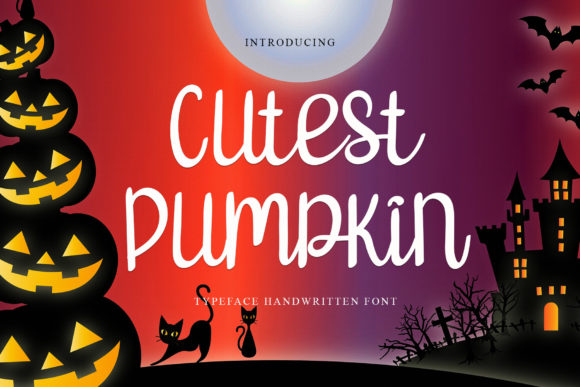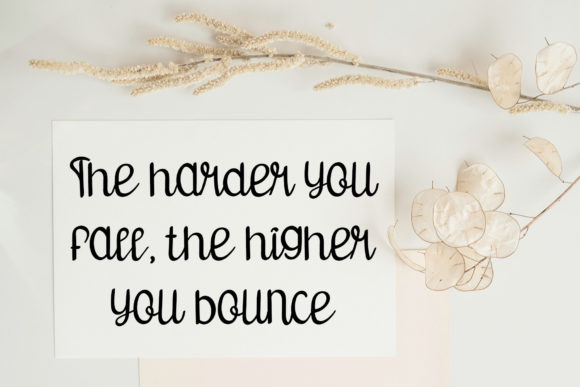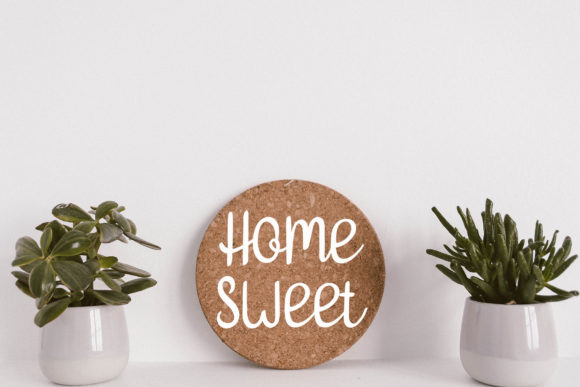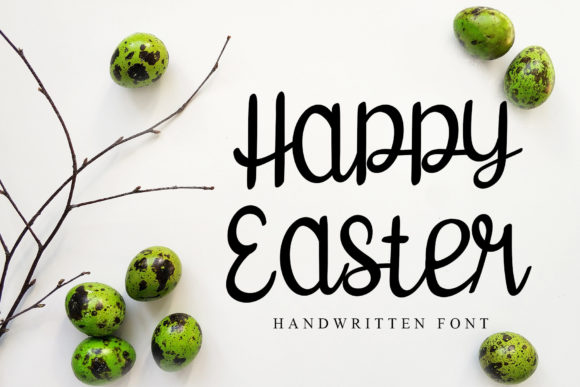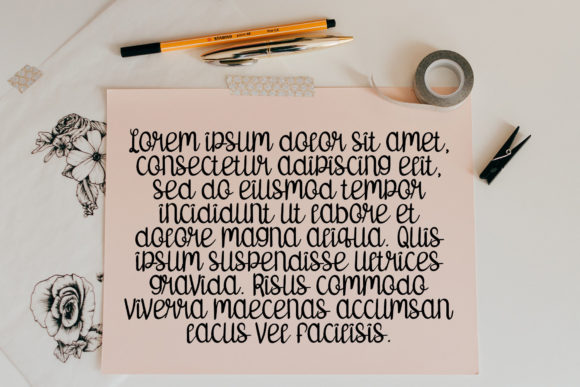
Cutest Pumpkin Font
About Cutest Pumpkin Font
Cutest Pumpkin is a sweet and cursive handwritten font. This gentle font will look gorgeous on a variety of design ideas. It will add a joyful and romantic touch to each of your projects!